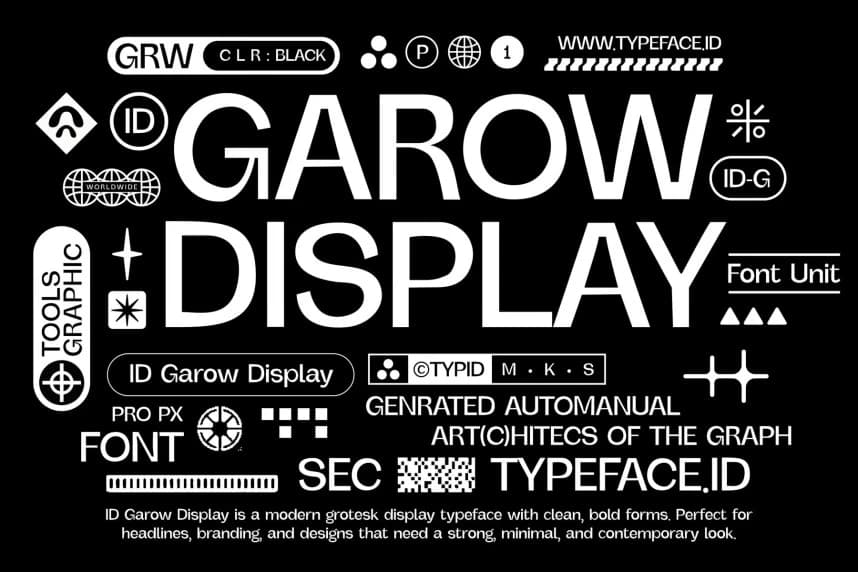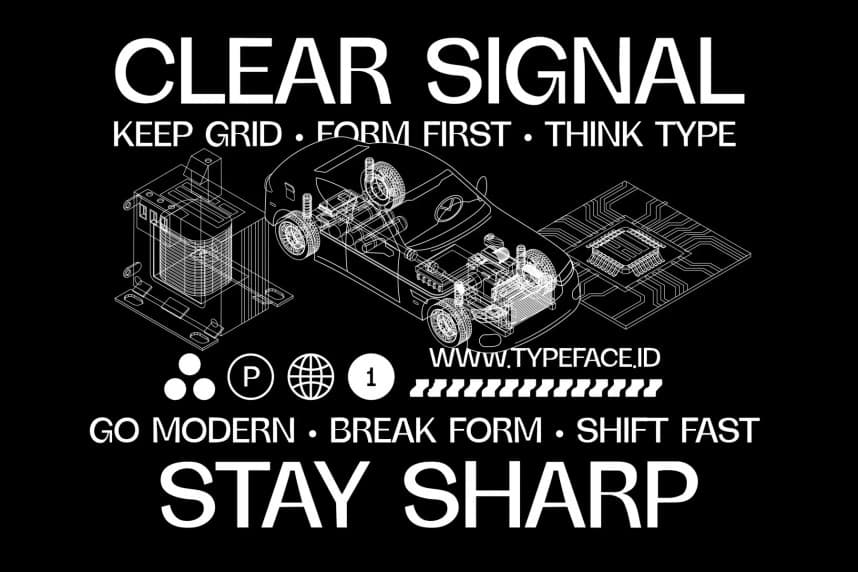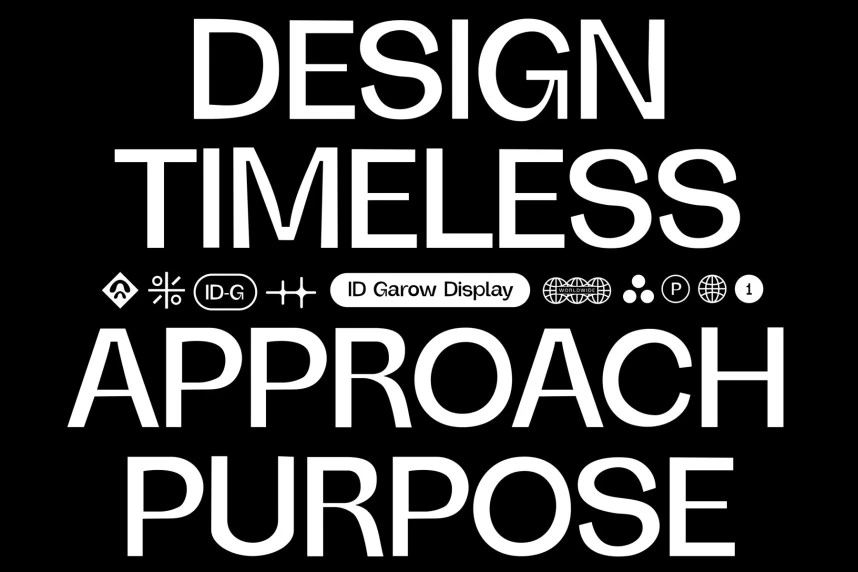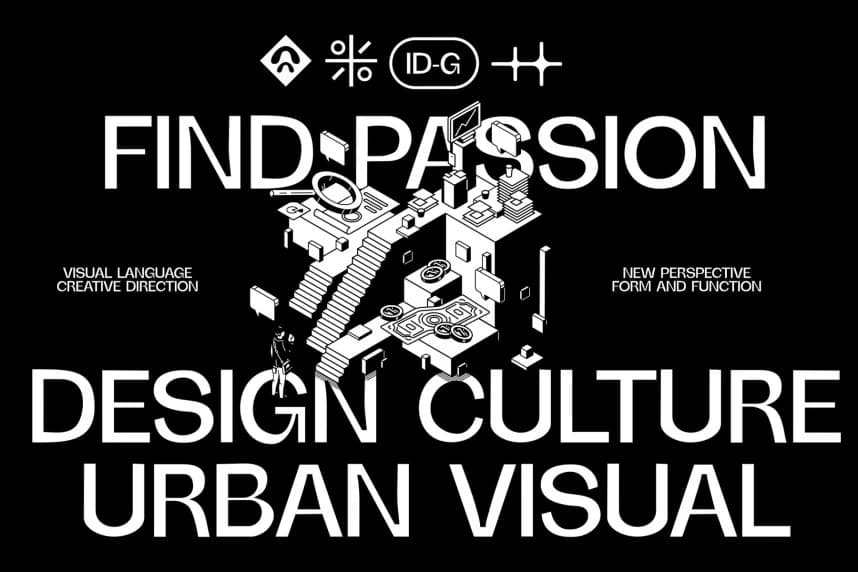
ID Garow Display Font
ID Garow Display Font is a modern grotesk-style display typeface focused on clarity, strength, and simplicity. Its clean structure and balanced proportions give it a confident presence, while the minimal character keeps layouts calm and direct.